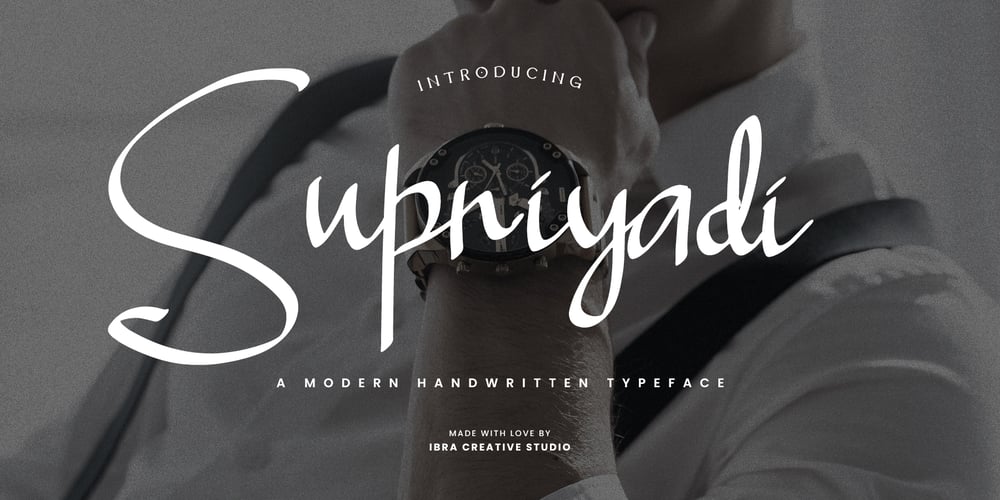
Supriyadi
Supriyadi font
Supriyadi Font Family was designed by Roisatul Azizah and published by IbraCreative. Supriyadi contains 1 styles and family package options. Supriyadi – A Modern Handwritten TypefaceSupriyadi is a contemporary handwritten typeface that effortlessly blends elegance with a touch of informality. Its fluid strokes and organic lines create a sense of warmth and friendliness, making it an ideal choice for projects that seek a modern and approachable aesthetic. The typeface strikes a harmonious balance between legibility and artistic expression, with each character bearing the distinctive mark of handcrafted authenticity. Supriyadi exudes versatility, adapting seamlessly to a range of design applications, from branding and packaging to invitations and social media graphics. Its inherent charm lies in the subtle variations of each letter, evoking a sense of personalization and uniqueness. With Supriyadi, the written word takes on a contemporary flair, inviting a connection between the creator and the audience through the artistry of handwritten expression.Supriyadi is perfect for branding projects, logo, wedding designs, social media posts, advertisements, product packaging, product designs, label, photography, watermark, invitation, stationery, game, fashion and any projects.Fonts include multilingual support for; Afrikaans, Albanian, Czech, Danish, Dutch, English, Estonian, Finnish, French, German, Hungarian, Italian, Latvian, Lithuanian, Norwegian, Polish, Portuguese, Slovak, Slovenian, Spanish, Swedish.